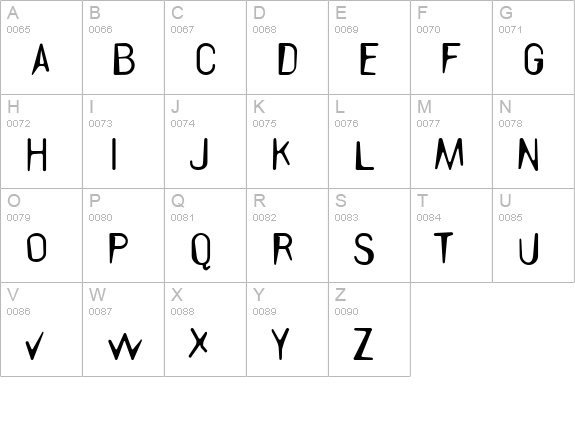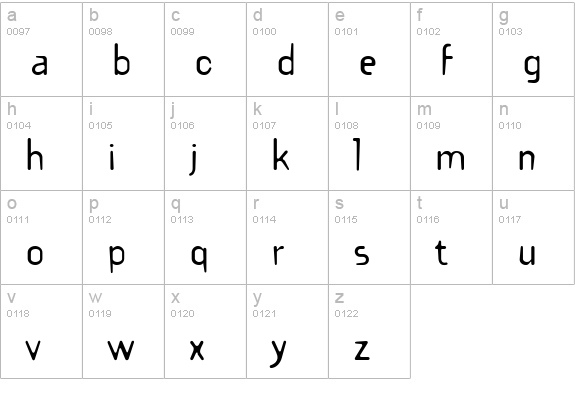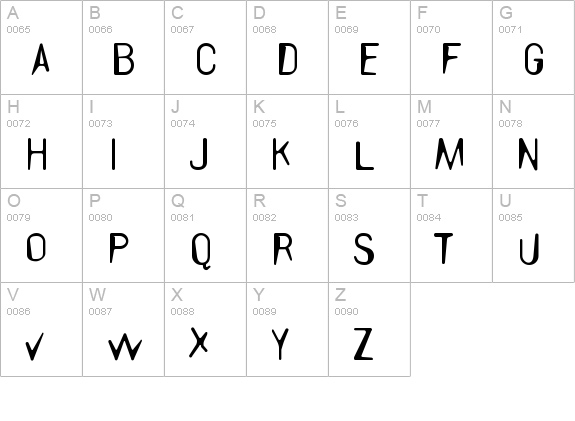
KubotaFont Font Details
Introducing KubotaFont, a versatile and modern typeface that is sure to make your designs stand out! This sleek and stylish font is perfect for a wide range of projects, from branding to advertising to social media graphics. With its clean lines and contemporary feel, KubotaFont is the ideal choice for anyone looking to add a touch of sophistication to their work. But the best part? KubotaFont is completely free to download at FontsMarket.com! That's right, you can add this stunning font to your collection without spending a dime. So why wait? Elevate your designs with KubotaFont today and see the difference it can make!